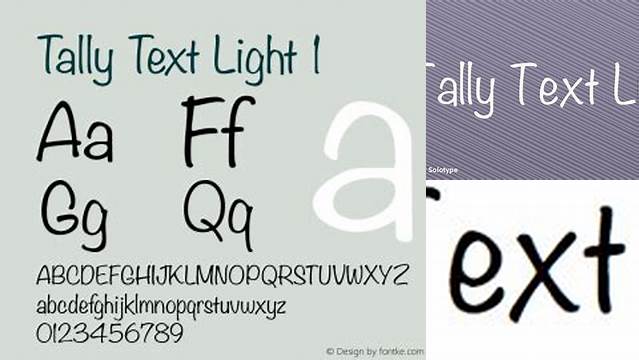
Tally Text Light Font: Download Free & Design Secrets
Hey there, design enthusiasts! Are you on the hunt for a sleek, modern font that's both easy on the eyes and versatile enough for a variety of projects? Look no further than Tally Text Light Font! This guide is your one-stop shop for everything you need to know about this fantastic typeface, including where to find free downloads and how to make the most of it in your design endeavors. We'll dive deep into the world of Tally Text Light, exploring its unique characteristics, discussing its ideal applications, and offering tips and tricks to elevate your designs. So, grab a coffee, get comfy, and let's explore the beauty of Tally Text Light Font together!
1. Unveiling Tally Text Light: A Closer Look
Alright, guys, let's start with the basics. Tally Text Light Font is a member of the Tally Text family, renowned for its clean lines and contemporary aesthetic. The 'Light' designation signifies a thinner weight, giving it a delicate and airy feel. This makes it an excellent choice for body text, headings, and anything where you want a touch of elegance and readability. The font typically includes a comprehensive set of characters, including uppercase and lowercase letters, numbers, punctuation, and sometimes even special characters and symbols. This ensures that you have everything you need to craft compelling and professional-looking designs. The essence of Tally Text Light lies in its simplicity and modern appeal. It's designed to be highly readable, even at smaller sizes, making it a versatile option for various applications. Whether you're designing a website, a brochure, a presentation, or simply creating social media graphics, this font can add a touch of sophistication to your work. The key to Tally Text Light's popularity is its adaptability. It seamlessly blends into various design styles, from minimalist to corporate to creative. Understanding the characteristics of this font is the first step to harnessing its full potential, so let's get started. Think of its sleek, modern vibe, great for clean designs. The lightweight nature is perfect for headings, creating a sense of space and elegance. It’s a versatile font, offering great readability. So, from invitations to websites, Tally Text Light is a great choice.
2. Why Choose Tally Text Light Font? Key Advantages
Why should Tally Text Light Font be your go-to choice? Well, there are several compelling reasons! First and foremost, its exceptional readability. In today's digital age, where content is consumed at a rapid pace, ensuring your text is easy to read is paramount. Tally Text Light excels in this area, making it a perfect choice for long-form content, such as articles, blogs, and e-books. Its clean letterforms and open counters contribute to a comfortable reading experience, minimizing eye strain and enhancing comprehension. Secondly, its versatility. This font seamlessly integrates into a wide range of design projects. It works equally well in digital and print media, making it a valuable asset for designers working across different platforms. From website design and app interfaces to brochures, flyers, and business cards, Tally Text Light adapts effortlessly. The font's modern aesthetic allows it to complement a variety of visual styles, including minimalist, modern, and even more traditional designs. Thirdly, its elegant aesthetic. Tally Text Light possesses a refined appearance that adds a touch of sophistication to any project. Its subtle yet stylish design elevates the overall look and feel, making it ideal for brands seeking to project a professional and polished image. This makes Tally Text Light suitable for luxury brands, creative agencies, and businesses that want to make a positive first impression. Its delicate weight also allows for creative applications such as creating a sense of spaciousness and airiness in a design. So from readability to elegance, Tally Text Light is great!
5. Tally Text Light in Web Design: Tips and Tricks
Tally Text Light Font is an excellent choice for web design, adding a touch of elegance and readability to your websites. When using it in web design, it's important to consider several factors to ensure optimal performance and visual appeal. One of the most important is to ensure that your website is accessible to all users. It's important to consider font sizes, weights, and contrast ratios to ensure that your text is readable for users with visual impairments. Avoid using very small font sizes, as this can make the text difficult to read, especially on mobile devices. It's generally recommended to use a minimum font size of 16 pixels for body text. Use different font weights to add emphasis. This can help highlight important information and improve readability. Also make sure to select contrasting color combinations for text and background. Dark text on a light background or vice versa is generally preferred. For optimal performance, consider using web-safe fonts. These fonts are pre-installed on most devices, which means they will load faster and reduce the chance of rendering issues. You can use CSS to specify the font family for different elements on your website. This allows you to easily control the appearance of your text throughout your website. Consider using a font loading service, such as Google Fonts, to ensure that the font is properly loaded and displayed on all devices. This is a good way to ensure that your website is accessible to all users. By carefully considering these factors, you can create websites that are not only visually appealing but also user-friendly and accessible to everyone. It is important to test your website on different devices and browsers to ensure that the font is displaying correctly. You may need to adjust the font size or other settings to optimize the appearance on different devices. Remember, a well-designed website is one that looks good and provides a great user experience. Now, let's make a stellar website using Tally Text Light Font!
6. Tally Text Light in Print Design: Best Practices
When it comes to print design, Tally Text Light Font can bring a touch of sophistication and clarity to your projects. But to fully leverage its potential, you need to follow some best practices. First and foremost, be mindful of the print medium. Unlike digital design, where you can adjust the size and resolution on the fly, print design requires careful planning. Consider the physical size of your print project and choose the appropriate font size to ensure readability. For example, a smaller font size is best for brochures and magazines, while you may need a larger size for posters and signs. Second, pay attention to the paper stock and printing process. The type of paper you choose can affect the way the font looks. A rougher paper may make the font appear less crisp, while a smooth paper will provide a cleaner look. Also, consider the printing process. Different printing methods, such as offset printing or digital printing, can influence the final result. Test the font with a sample print to check its readability and appearance. Third, use appropriate letter spacing and kerning. These elements can dramatically improve readability. Kerning refers to the spacing between specific letter pairs. In Tally Text Light, proper kerning ensures that the letters are evenly spaced, enhancing the visual appeal and readability of your text. For body text, consider a slightly wider letter spacing to enhance readability. Always preview your design with the final print file! By following these best practices, you'll be able to leverage Tally Text Light to create professional and visually appealing print materials. It's like giving your project a professional boost!
7. Pairing Tally Text Light with Other Fonts: Harmonious Combinations
Finding the right font combinations can significantly enhance the visual appeal and effectiveness of your designs. Tally Text Light Font, with its clean and modern aesthetic, pairs well with a variety of other fonts. When selecting a complementary font, consider the overall design style and the message you want to convey. For a classic and elegant look, consider pairing Tally Text Light with a serif font, such as Times New Roman or Georgia, for body text. The contrast between the clean lines of Tally Text Light and the more traditional serifs creates a balanced and sophisticated aesthetic. For a more modern and playful design, combine Tally Text Light with a bold sans-serif font for headings. This contrast creates visual interest and helps to draw attention to important elements. Consider using a contrasting font weight and size to emphasize the hierarchy. For example, a bold, larger-sized sans-serif font for headings and subheadings, and Tally Text Light for body text. When using a font with a handwritten or script style, it can bring warmth and personality to your designs. Just make sure to use this combination sparingly to avoid overwhelming the reader. When choosing fonts, consider their overall x-height. The x-height refers to the height of the lowercase 'x' in a font. A good font pairing involves fonts with similar x-heights, as this enhances readability and creates a cohesive look. Ultimately, the best font combination depends on your specific project and design goals. Experiment with different pairings to find what works best. Test your font combinations on a variety of layouts and designs before making any final decisions. Now you know the best Tally Text Light Font font combinations, so get designing!
8. Tally Text Light Font in Branding: Creating a Strong Identity
In the world of branding, the choice of font is a crucial decision, influencing how your brand is perceived. Tally Text Light Font offers a unique set of characteristics that can be leveraged to create a strong brand identity. Its clean, modern aesthetic can convey a sense of professionalism, sophistication, and trustworthiness. When using Tally Text Light in branding, consistency is key. Use the font consistently across all your branding materials, including your logo, website, social media, and print materials. This consistency helps to build brand recognition and reinforce your brand message. Consider using Tally Text Light for your logo, or incorporate it in other branding elements, such as your tagline or website headers. Always think about the target audience. Consider what fonts resonate with your target audience. Does the font fit their preferences and expectations? If you're targeting a sophisticated audience, Tally Text Light is a great option. Don't forget to choose complementary fonts for the rest of your branding. Choosing the correct fonts can establish hierarchy and visual appeal. In addition, remember to consider the overall design and feel of your brand. Tally Text Light can easily adapt to a variety of design styles, from minimalist to modern. But, the best font combinations will depend on your brand's personality and tone. Tally Text Light Font offers you to build a strong brand identity!
14. The History and Origins of Tally Text Light Font
While the exact history of Tally Text Light Font might not be as extensively documented as some older, more established typefaces, understanding its origins can provide valuable context for its design and usage. As a member of the Tally Text family, Tally Text Light likely emerged from a design studio or type foundry focused on contemporary and functional typefaces. The designers likely aimed to create a font that was versatile, clean, and highly readable, with a focus on modern aesthetics. The